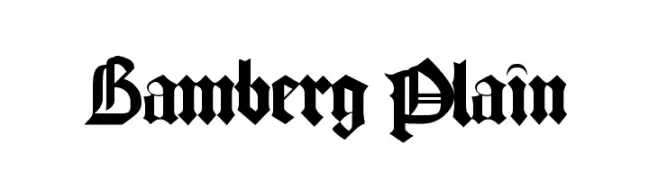
( Fonts by Paul Lloyd )
A classic serif font with elegant, sharp lines and a timeless Roman-inspired design.
( Fonts by dartcanada.tripod.com - Darren Rigby )
A bold, high-contrast serif font with a modern yet classic style.
( Fonts by dustBUST - Andreas Nylin )
A playful, hand-drawn font with a whimsical and dynamic style.
( Fonts by www.aenigmafonts.com )
A bold, decorative font with spiky serifs and intricate details.